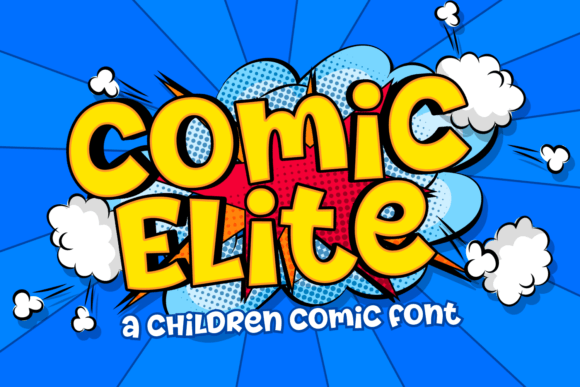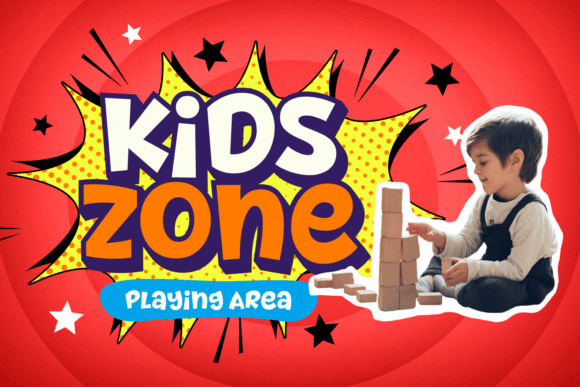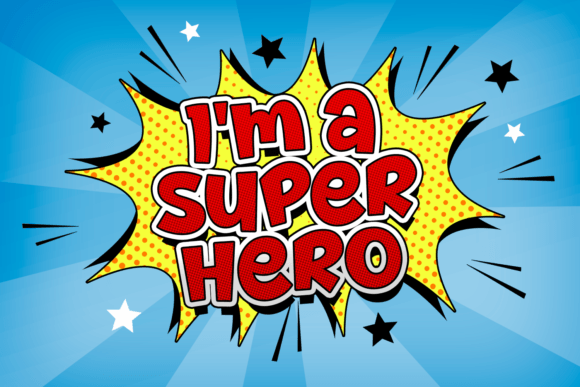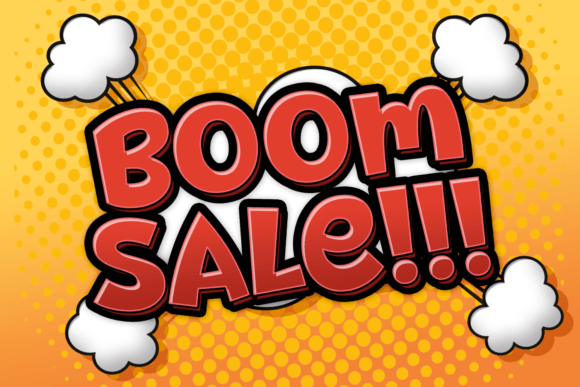
Comic Elite Font
About the Comic Elite Font
The Comic Elite Font is here to transform your projects with its distinctive character and style. Comic Elite is a lively and playful children’s comic font, designed to evoke the fun and expressive style of classic comic book lettering. With its lighthearted and energetic design, the font is perfect for use in children’s content, from comic strips to storybooks and fun educational materials. This lovely display font is perfect for comic strips, children’s books, and other narrative-driven designs that require clear and fun typography.
Comic Elite’s playful energy makes it ideal for children’s book covers, posters for family events, or branding for playful products targeted at younger audiences. It works exceptionally well in headlines and short, impactful text, adding a sense of fun and dynamism. However, its readability suffers in long blocks of text or small sizes, making it unsuitable for body copy or UI elements.
Pairing Comic Elite with a clean sans-serif like Open Sans for body text creates a strong visual contrast and maintains readability. For a more sophisticated feel, consider pairing it with a classic serif like Garamond for supporting text, balancing its youthful exuberance with a touch of timeless elegance.
The font’s overall personality is undeniably cheerful and expressive, best suited for projects emphasizing fun, creativity, and lightheartedness. Avoid using it where a serious or sophisticated tone is required.